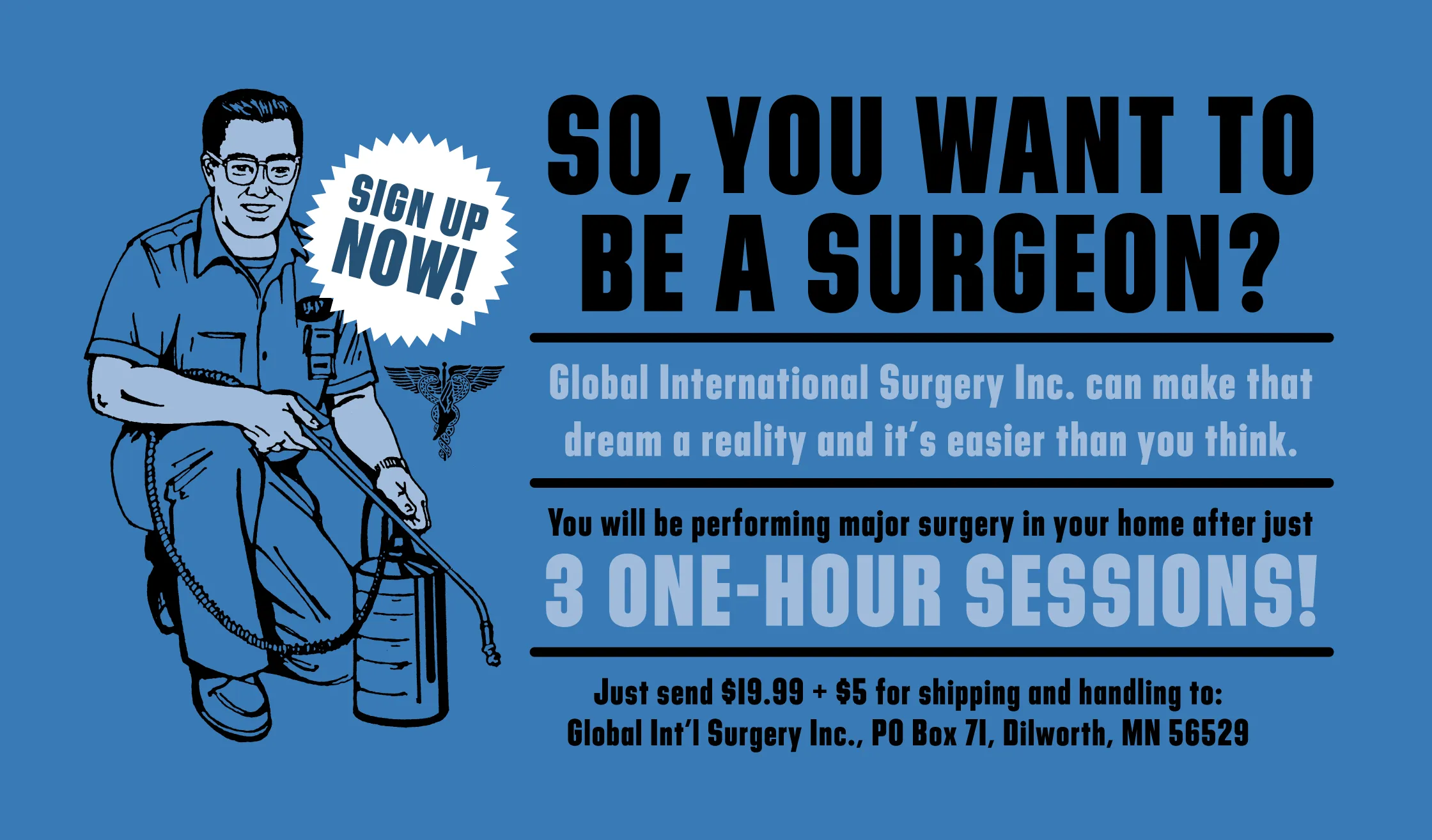
Filmotype Ginger Font
The Filmotype Ginger Font is perfect for spicy vintage advertising, energetic retro campaigns, vibrant mid-century designs, spirited 1950s branding, lively vintage packaging, dynamic classic signage, zesty retro promotions, animated vintage graphics, peppy mid-century communications, and authentic vintage lifestyle campaigns.
What makes the Filmotype Ginger Font so exciting is its perfect capture of mid-century energy with spicy Filmotype personality that creates an irresistibly vibrant typeface perfect for brands seeking to communicate zest, liveliness, and authentic vintage spirit. This spirited typeface features dynamic Filmotype construction, energetic character proportions, and spicy mid-century design elements that perfectly capture the essence of vintage vitality and classic commercial energy. The font's ginger personality and Filmotype liveliness make it an exceptional choice for energetic brands, vibrant lifestyle companies, and spirited projects seeking to communicate enthusiasm, zest, and authentic mid-century vigor with genuine period authenticity.
The Filmotype Ginger Font family includes energetic variations and spicy alternates, featuring dynamic Filmotype weights, ginger-inspired character options, and mid-century vitality styling elements. Each variation maintains the signature spirited appeal while offering different levels of energetic expression and Filmotype zest, giving designers extensive creative possibilities for crafting vibrant vintage communications and lively brand personalities that honor mid-century energy and spirited traditions.
The spirited vintage characteristics of Filmotype Ginger Font showcase masterful energetic typography preservation, with each letter featuring genuine Filmotype construction elements and ginger-spiced design details that enhance its vibrant credibility and vintage authenticity. The font's comprehensive character set includes uppercase and lowercase letters, numerals, energetic punctuation, and spicy symbols, ensuring complete functionality for diverse vibrant projects and international vintage energy applications.
Specifically designed for both digital and print energetic applications, this dynamic font maintains its Filmotype character and ginger vitality across all sizes and formats. From large-scale vibrant displays to detailed spicy vintage designs, Filmotype Ginger Font performs exceptionally while preserving its distinctive energetic personality and authentic mid-century ginger appeal.